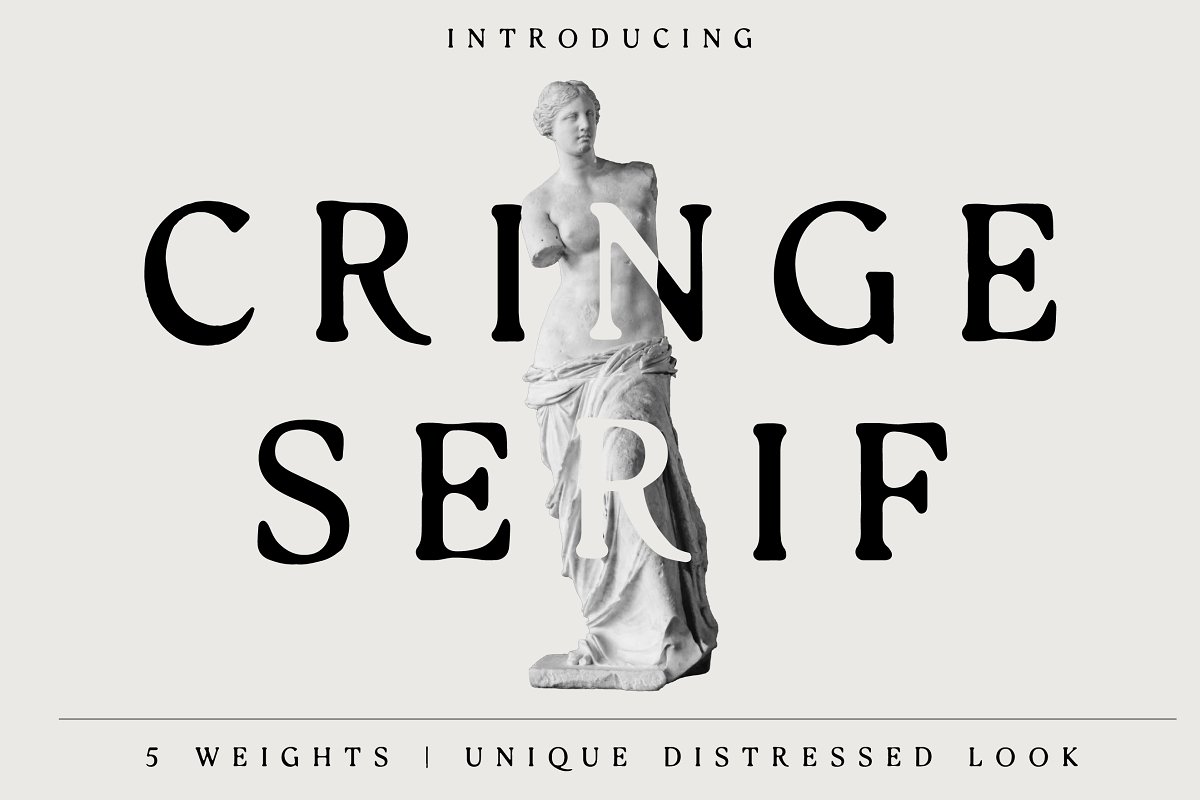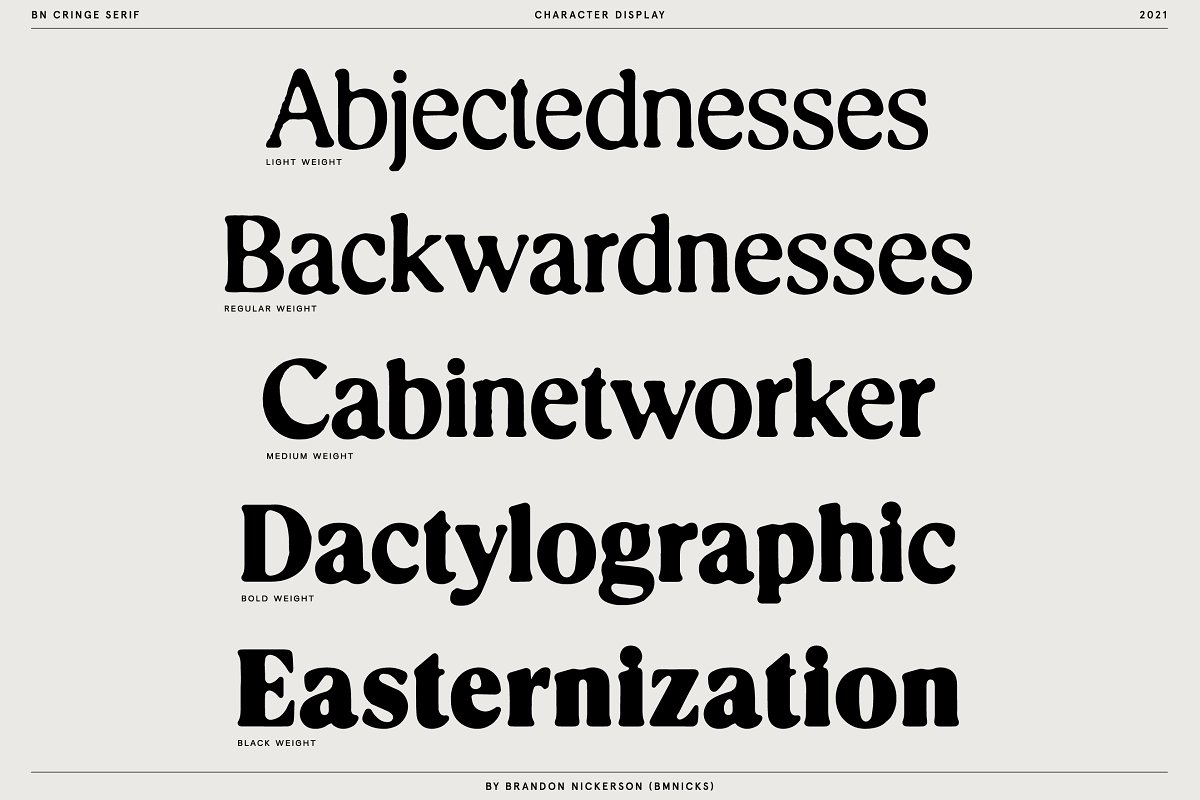
About the Cringe Serif
Introducing BN Cringe Serif, A distressed typeface designed for legibility and to give your design a unique look, Cringe Serif comes with 5 weights, each weight (and character) has been meticulously crafted giving each character unique attributes,